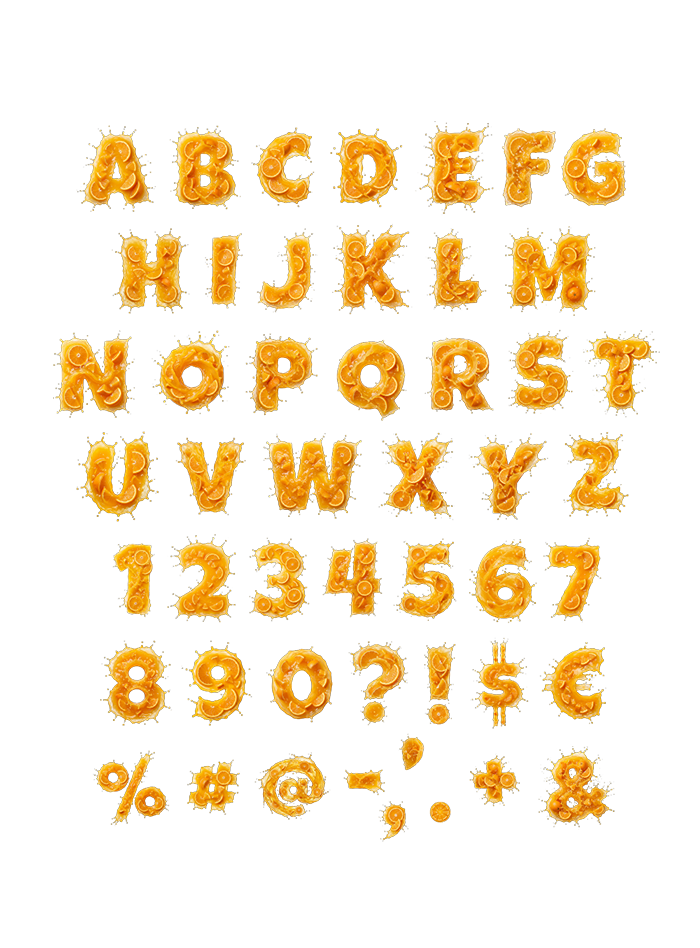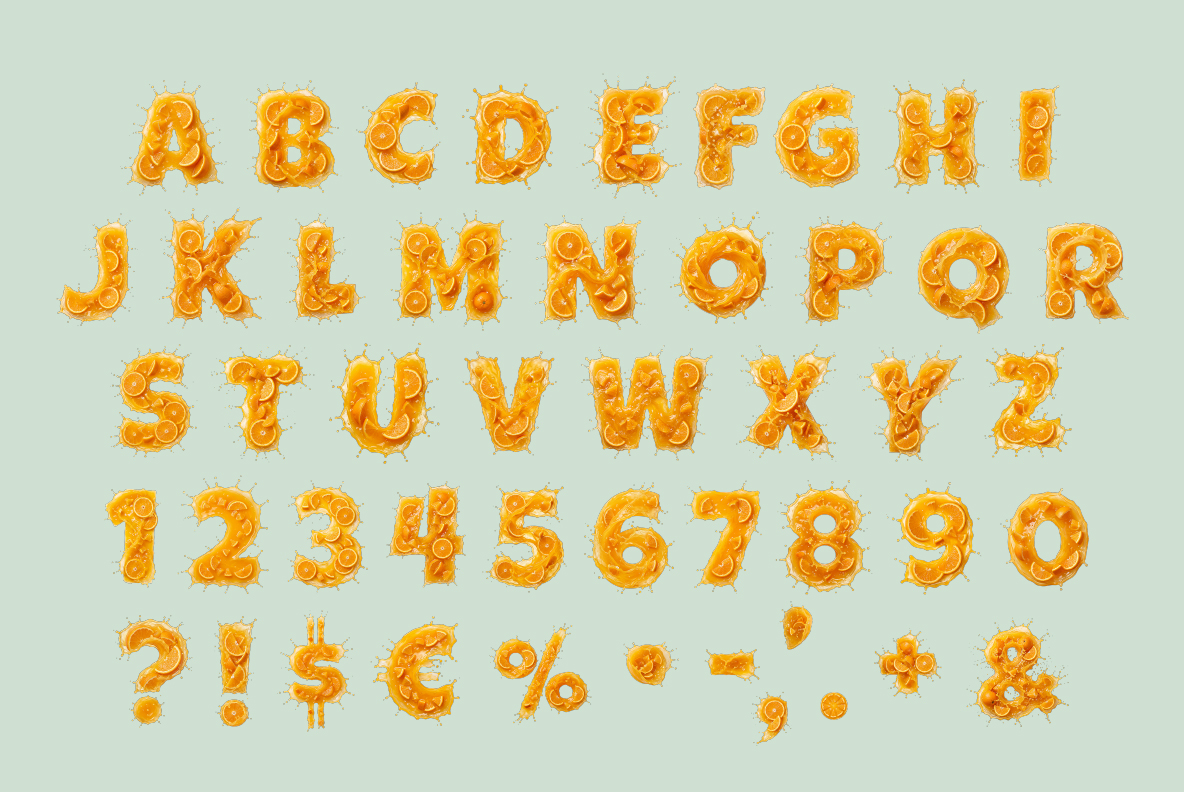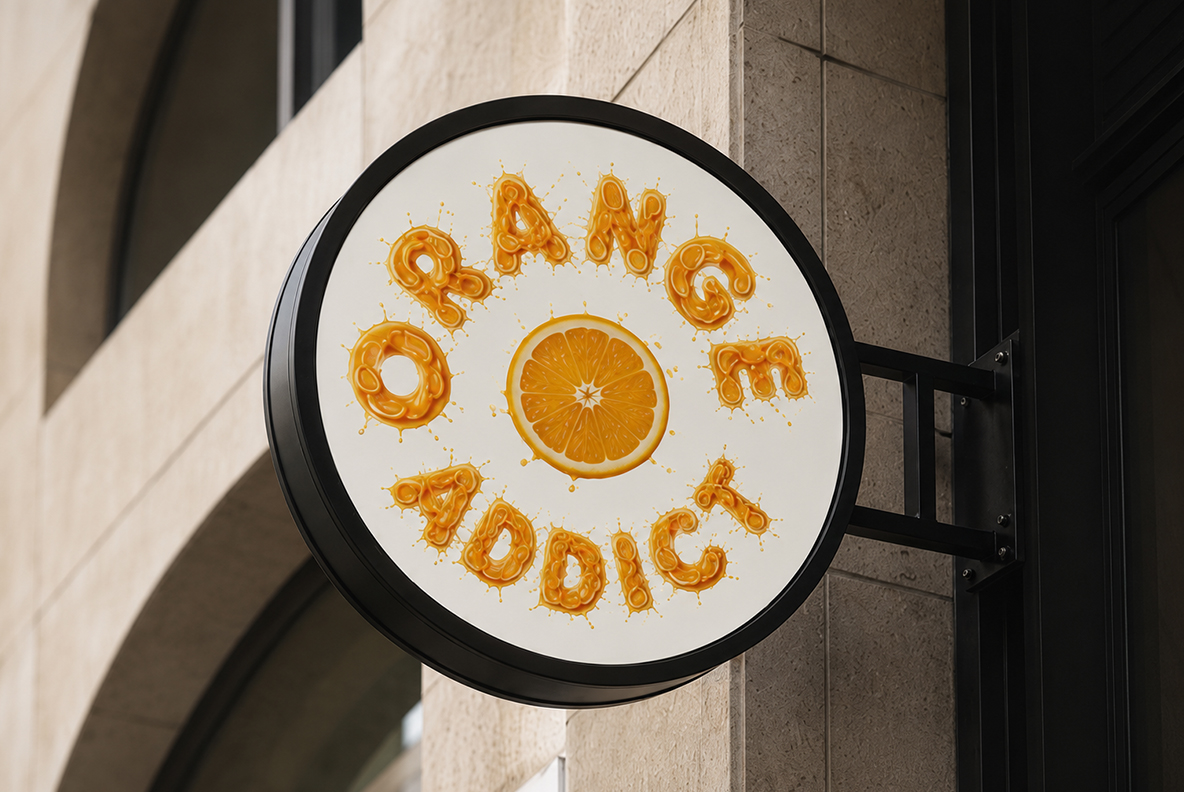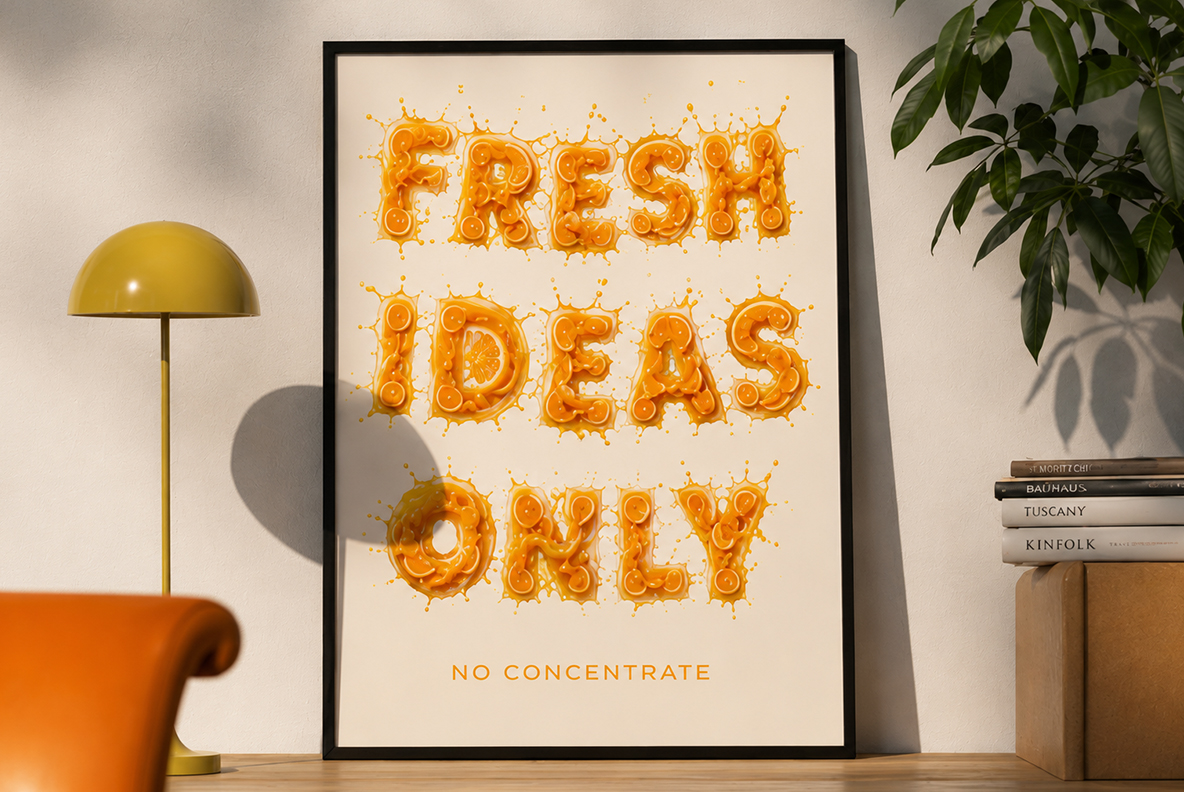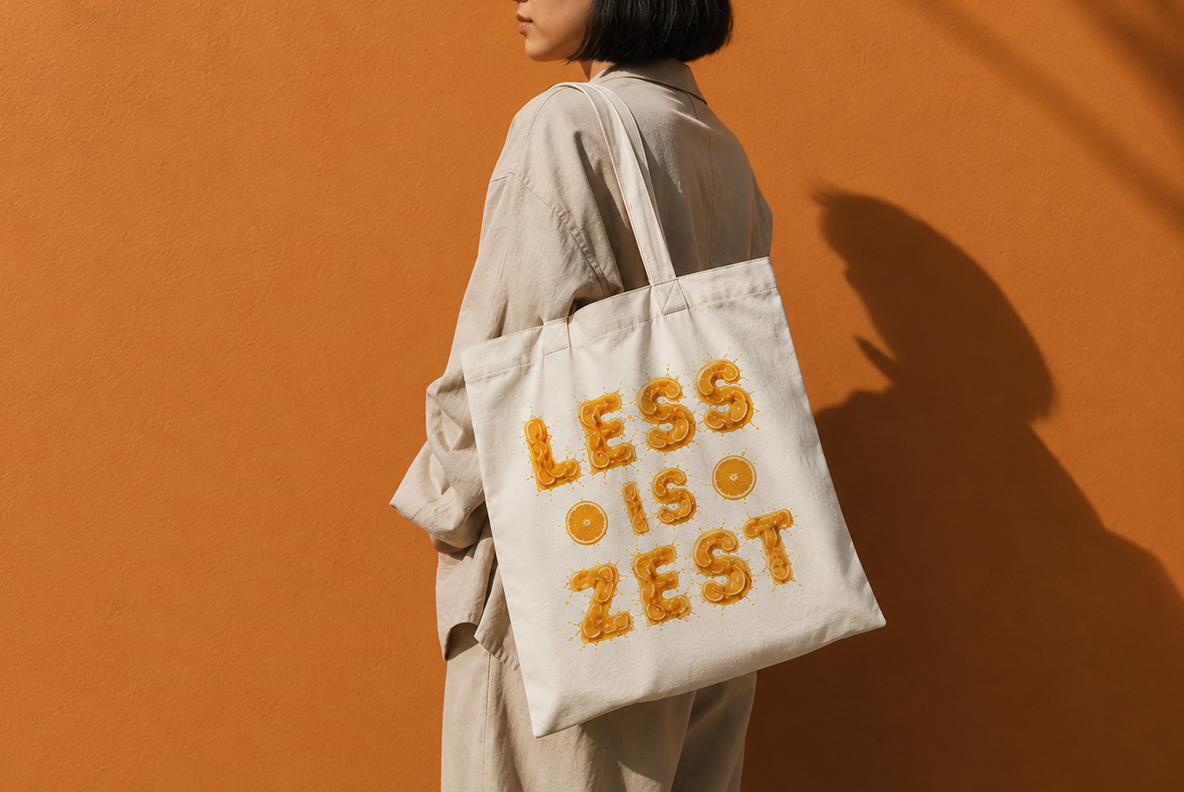
Orange Burst Font. Citrus Splash Alphabet
The Orange Burst Font turns every letter into a burst of fresh citrus — orange slices, juice splashes, and droplets frozen mid-motion. It’s bright, playful, and undeniably juicy, perfect for juice bars, summer campaigns, or any brand that wants its type to feel fresh-squeezed. Bold enough for headlines, fun enough for packaging, and impossible to look at without craving orange juice.
Typography Splashed From Fresh Citrus
Orange Burst takes the alphabet straight to the juice bar — every letter built from real orange slices, wedges, and a splash of juice caught mid-motion, droplets suspended in the air like the shot happened a split second ago. It’s vivid, wet, and full of energy, with a texture that reads as fresh rather than digital. Nothing about it sits still on the page, and that restlessness is exactly what makes it fun to look at.
Built as a Color OpenType, Delivered as PNG Too
Animated GIF preview of the Orange Burst Font spelling FONT
Where This Font Actually Works
Orange Burst Font product title card spelling FONT
Orange Burst Font full character set with letters, numbers, and symbols
Orange Burst Font reading Orange You Glad Its Friday on a city street billboard
Orange Burst Font reading Orange Addict on a round hanging shop sign
Orange Burst Font question mark and ampersand made of orange slices and juice
Orange Burst Font spelling Focus above an illustrated orange character reading a book
Orange Burst Font poster reading Fresh Ideas Only No Concentrate
Orange Burst Font spelling Pop in a magazine spread mockup
Orange Burst Font reading Less Is Zest printed on a canvas tote bag
Orange Burst Font spelling Juicy printed on a t-shirt with a newspaper mockup
Orange Burst Font billboard reading Fresh Is The New Cool beside a glass of orange juice
Orange Burst Font reading Squeeze The Day printed on the back of a t-shirt
Orange Burst Font letters A, B, C, D and numbers 1-4 on transparent background